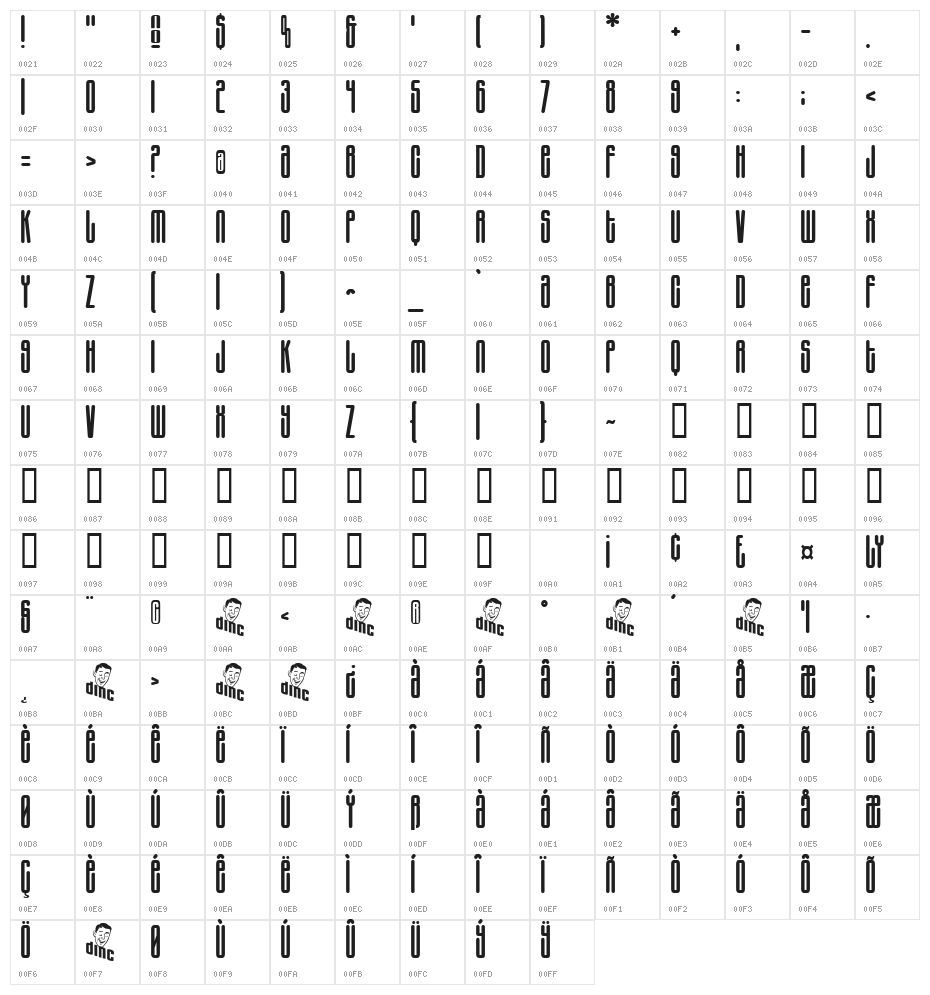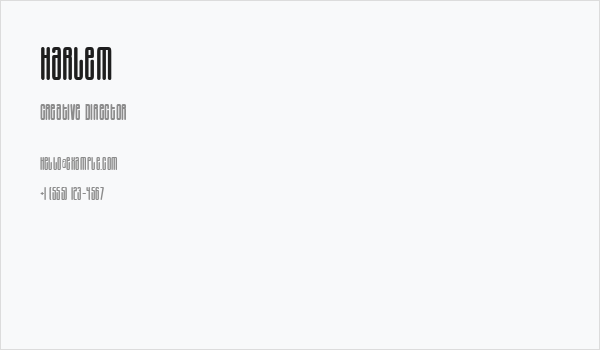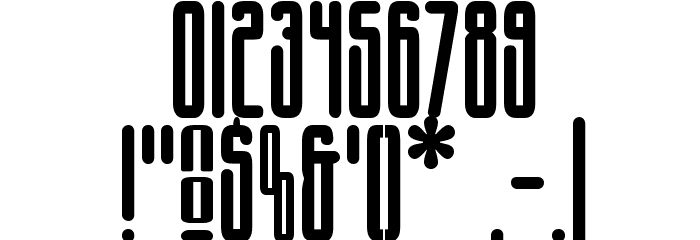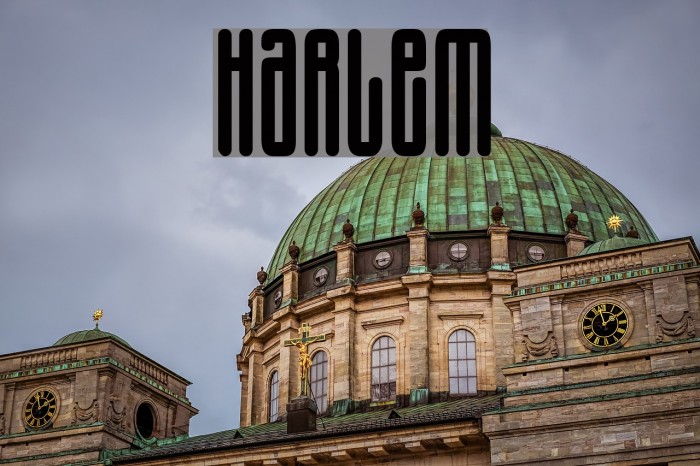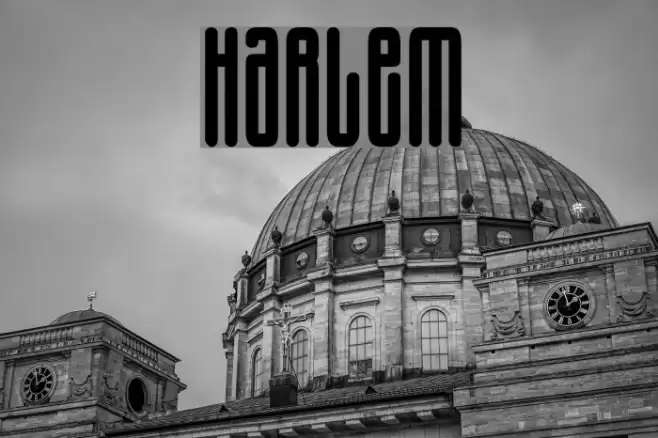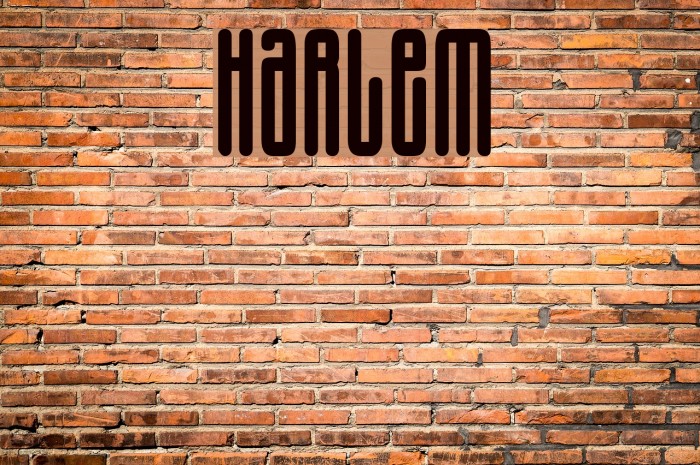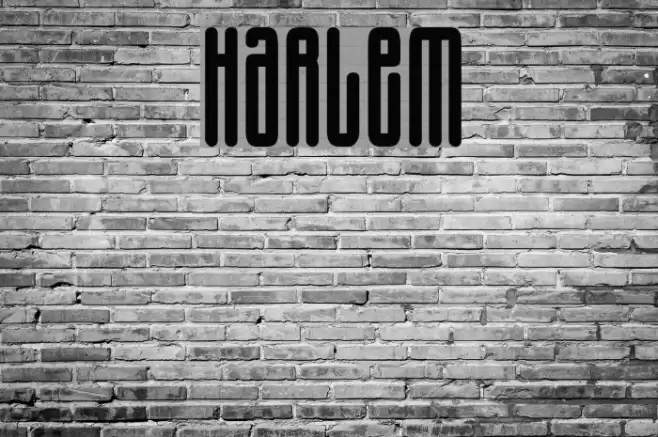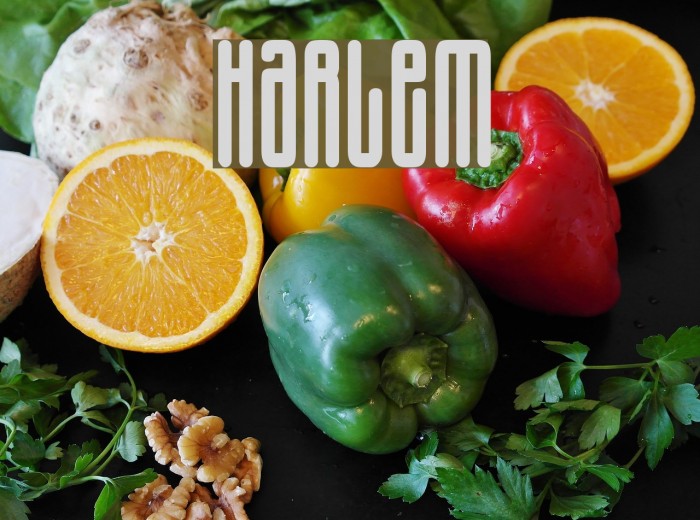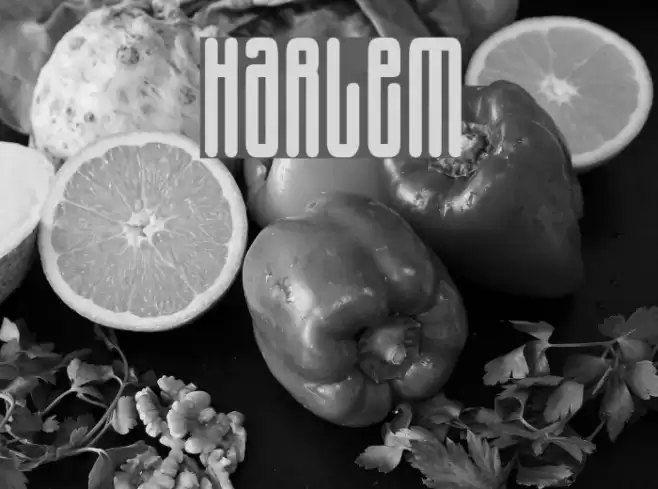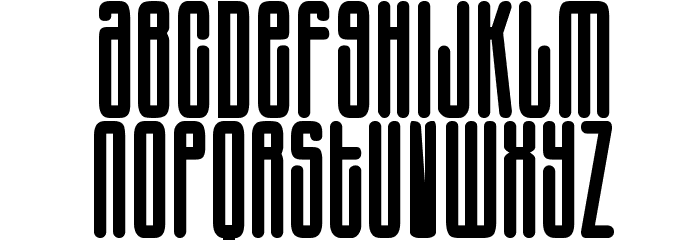
Harlem Font
Harlem Description
This font features a bold and condensed style with a modern flair, characterized by its tall, narrow letterforms and rounded edges. The uppercase and lowercase letters maintain a consistent height, creating a uniform appearance. The numbers and special characters follow the same design principles, ensuring a cohesive look across all elements. The font's high contrast and tight character spacing make it stand out, ideal for creating impactful headlines and eye-catching designs. Its unique style is both contemporary and versatile, suitable for a variety of creative projects.
| Proposed Projects | Ideal for posters, branding, packaging, and editorial design. |